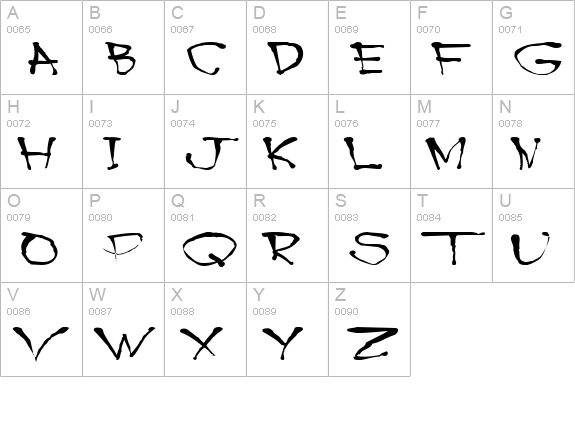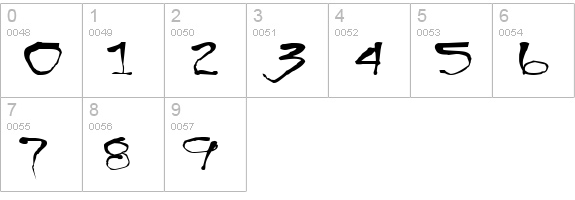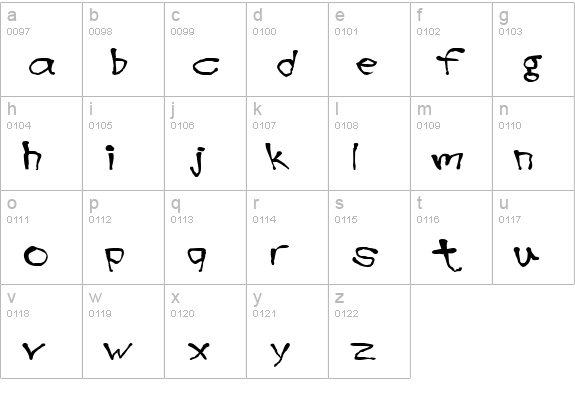
Blottooo font is a whimsical and playful typeface that exudes a sense of fun and creativity. Its unique design features bold and rounded letterforms that make it perfect for projects seeking a touch of personality and charm. Whether you are working on a children's book, a party invitation, or a branding project, Blottooo font will add a delightful and engaging touch to your work. The best part? Blottooo font is available for free download at FontsMarket.com. This means you can easily access this delightful typeface and incorporate it into your designs without any cost. Don't miss out on the opportunity to add Blottooo font to your font library today and let your creativity shine!